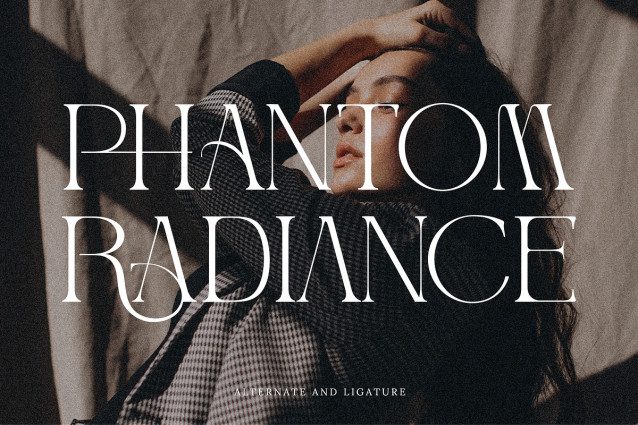
Seraphim Font
Seraphim Font is an elegant and refined serif typeface crafted for modern beauty and luxury design. With its graceful curves and high-contrast strokes, it blends classic sophistication with a contemporary aesthetic. Perfect for branding, fashion editorials, invitations, and high-end packaging, Seraphim adds a timeless charm to any visual composition.